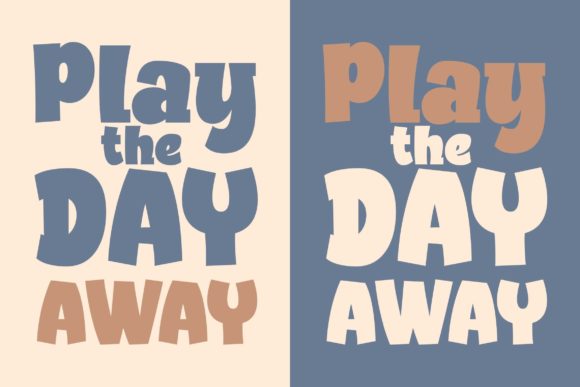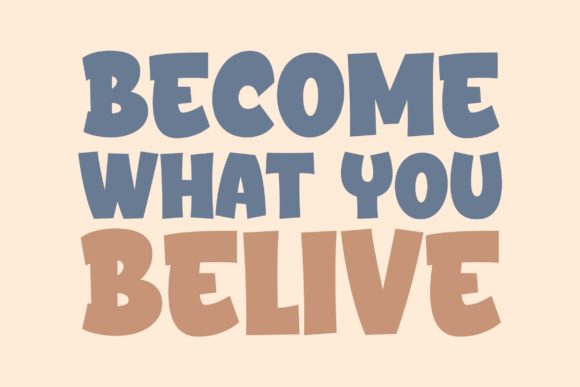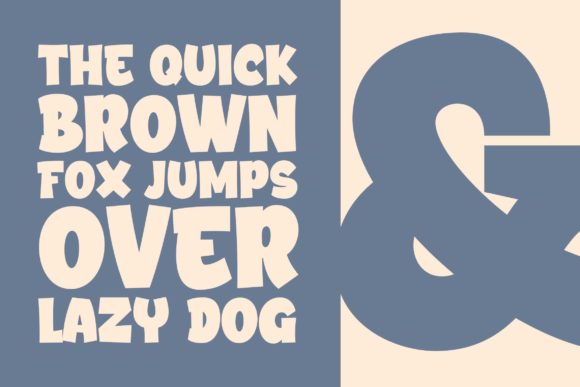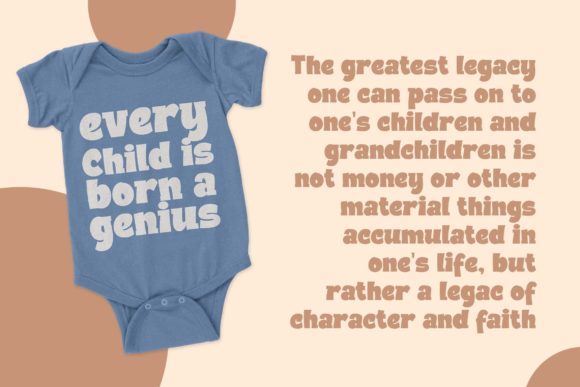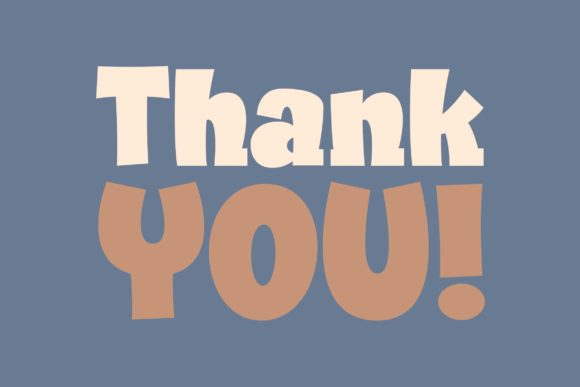
Introduction to Helsky Font
Have you ever stared at a blank canvas, eager to bring a creative project to life, only to be stuck on finding the perfect design resource? It’s a moment we’ve all been in – the blank page staring back, taunting us to fill it with something amazing. But what if I told you there’s a font that can spark that creativity and make your design dreams come true?
Enter the Helsky Font, a charming display font that’s sure to bring a smile to your face. With its thick, friendly letters, this font is perfect for adding a cute touch to any design project – from cartoon-inspired illustrations to children’s games and beyond.
What sets Helsky Font apart is its versatility and high quality. Whether you’re working on a creative project that requires a free download or need a font with a transparent background, Helsky Font is an excellent choice. With its unique design and friendly vibe, it’s no wonder designers are falling in love with this incredible font.
Key Features of Helsky Font
- High-quality design resource ideal for creative projects, offering a unique aesthetic and style.
- Features a clean and modern design, suitable for various applications, including logos, branding, and typography-based designs.
- Unique characteristics include its sleek lines, rounded edges, and minimalist approach, setting it apart from other fonts in its class.
Honest Review: Helsky Font
Tips for Getting the Most Out of Helsky Font
For optimal results, use the Helsky Font with a transparent background to create a clean and modern design. You can also experiment with different font sizes and colors to add depth and interest to your project.
The Helsky Font is ideal for a variety of creative projects, including logos, brochures, and social media graphics. Its versatility and high-quality design make it a popular choice among designers and creatives.